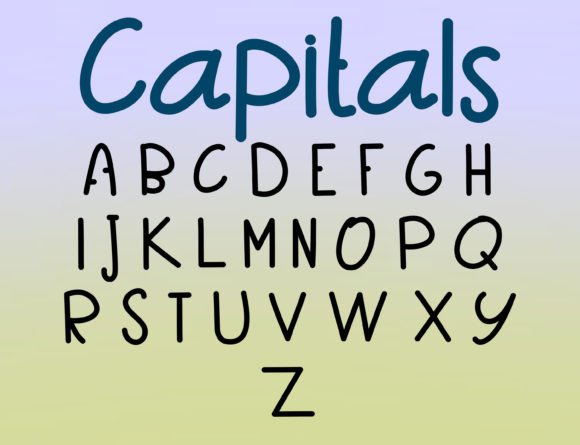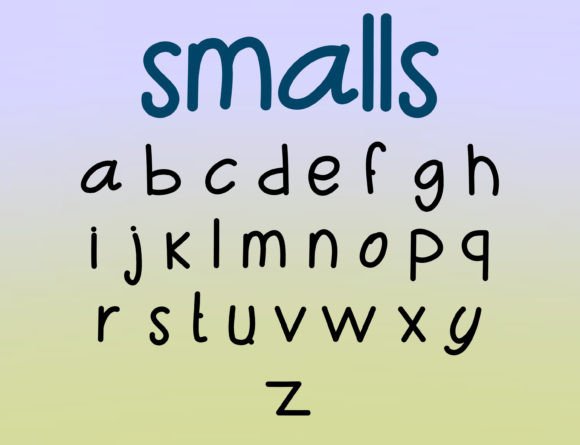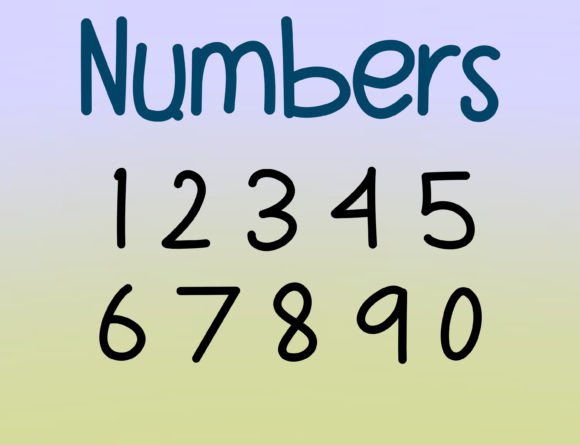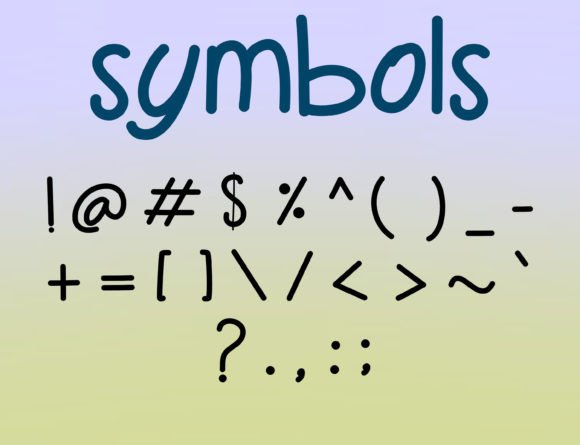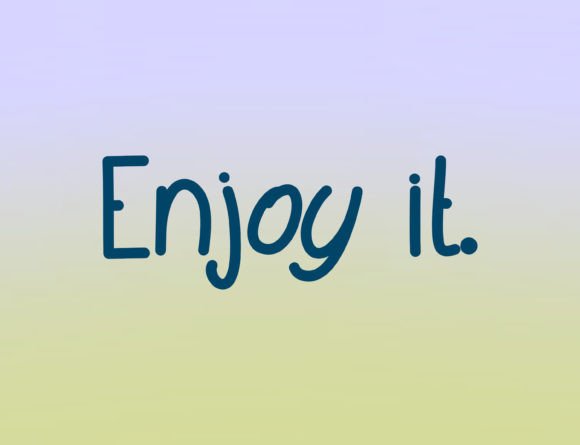
Introducing Amal Font: The Ultimate Casual and Fun Handwritten Font
Are you tired of using the same old fonts for your designs and crafts? Look no further! Amal Font is here to revolutionize your creative projects with its casual and fun handwritten style. Whether you’re a designer, crafter, or simply someone who loves to get creative, Amal Font is the perfect addition to your font collection.
What Makes Amal Font So Special?
Amal Font is a versatile and playful font that can be used for a wide range of projects. Its casual and fun handwritten style makes it perfect for:
- Crafts: Use Amal Font to add a personal touch to your handmade crafts, such as cards, gift tags, and scrapbook pages.
- Digital Design: Add a playful touch to your digital designs, including social media graphics, presentations, and blog posts.
- Greeting Cards: Create personalized and unique greeting cards for special occasions, such as birthdays, weddings, and holidays.
- Presentations: Make your presentations more engaging and fun with Amal Font’s casual and approachable style.
Why You’ll Love Amal Font
So, what makes Amal Font so lovable? Here are just a few reasons why you’ll want to make it your go-to font:
- Easy to Read: Despite its casual and handwritten style, Amal Font is surprisingly easy to read, making it perfect for both digital and print projects.
- Versatile: Amal Font can be used for a wide range of projects, from formal to informal, and can be paired with a variety of other fonts and design elements.
- Fun and Playful: Amal Font adds a touch of whimsy and playfulness to any project, making it perfect for designers and crafters who want to add some personality to their work.
- Unique: With its unique and distinctive style, Amal Font will help your projects stand out from the crowd and leave a lasting impression.
How to Use Amal Font in Your Projects
Using Amal Font in your projects is easy! Here are a few tips to get you started:
- Pair it with Other Fonts: Amal Font pairs well with a variety of other fonts, including serif and sans-serif fonts. Experiment with different combinations to find the perfect look for your project.
- Use it for Headings and Titles: Amal Font is perfect for headings and titles, adding a touch of personality and whimsy to your projects.
- Add it to Your Digital Toolkit: Add Amal Font to your digital toolkit and use it to create engaging and fun digital designs, including social media graphics and presentations.
Key Features of Amal Font
- Handwritten font with a casual and fun style
- Perfect for crafts, digital design, presentations, and greeting cards
- Easy to read and versatile
- Fun and playful, with a unique and distinctive style
- Pairs well with a variety of other fonts and design elements